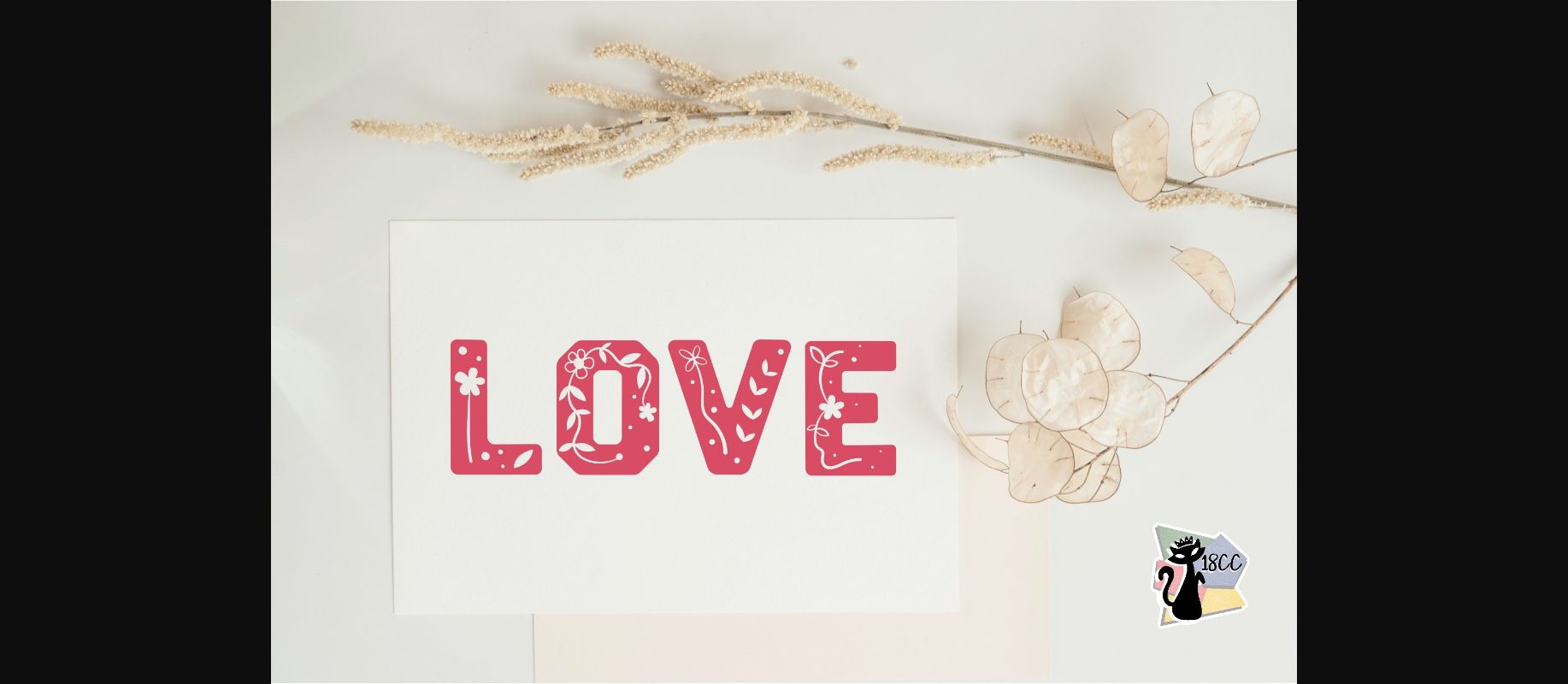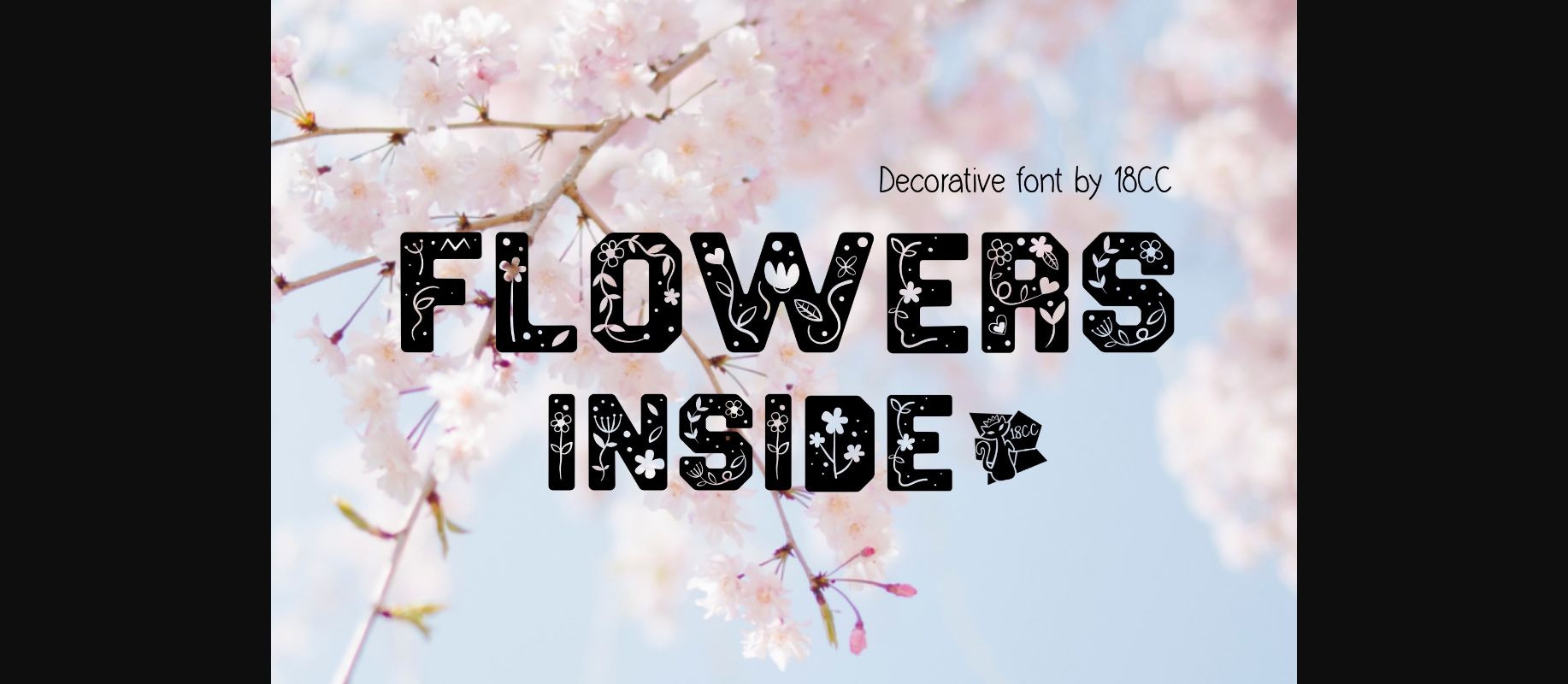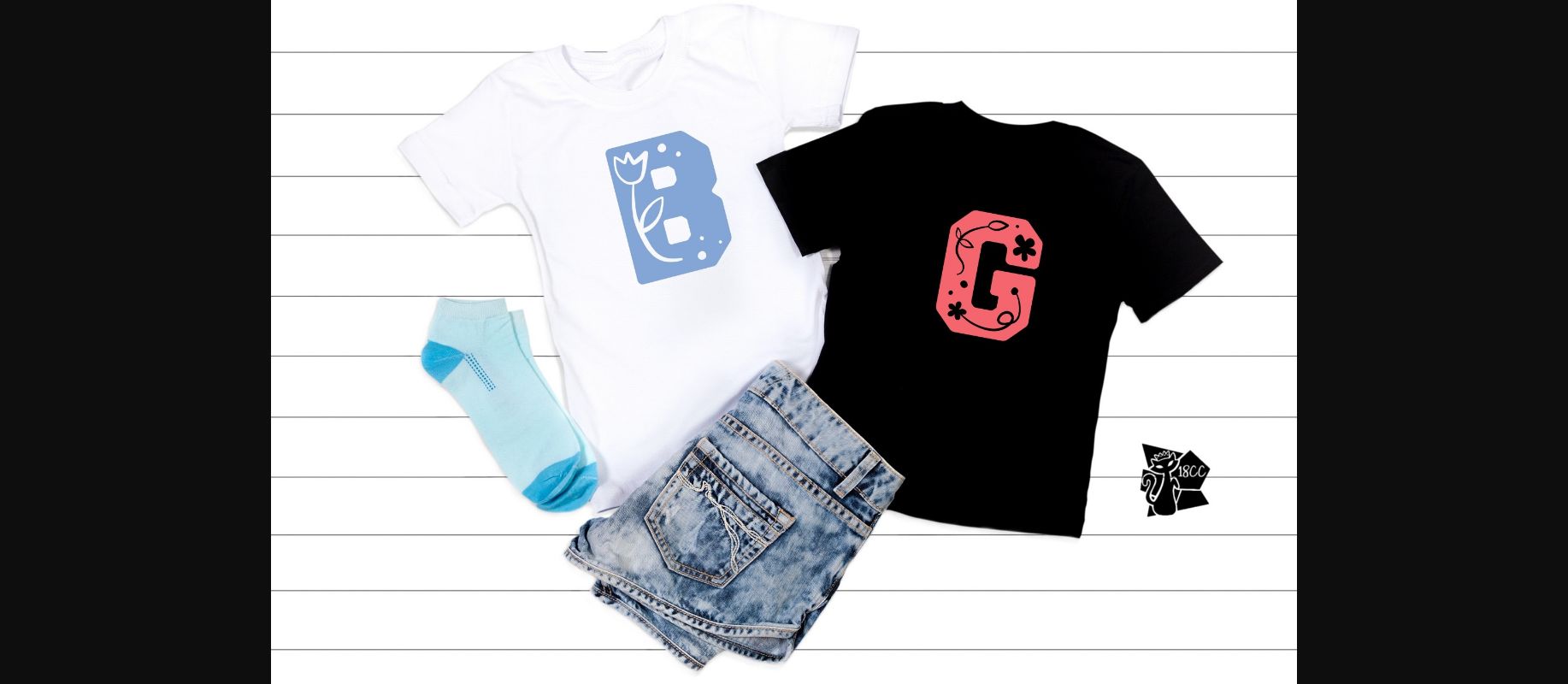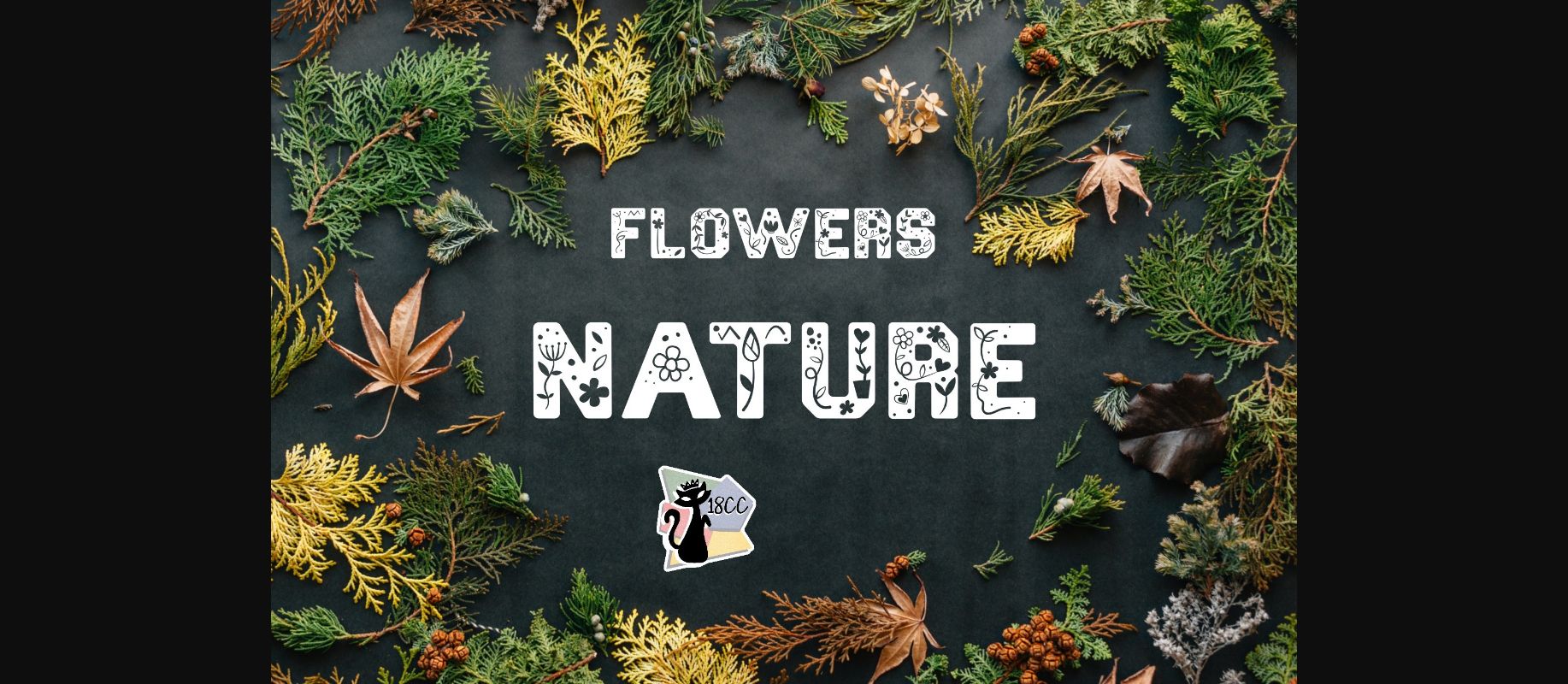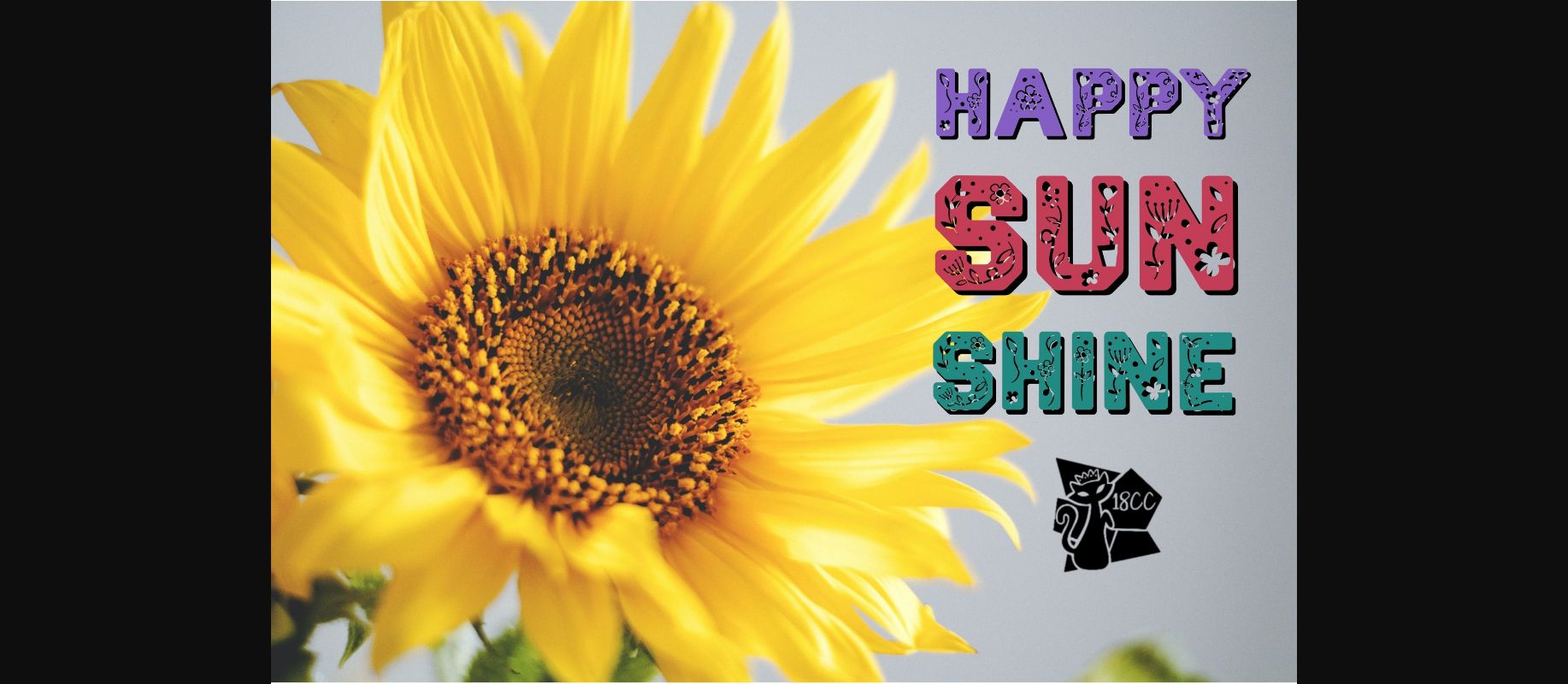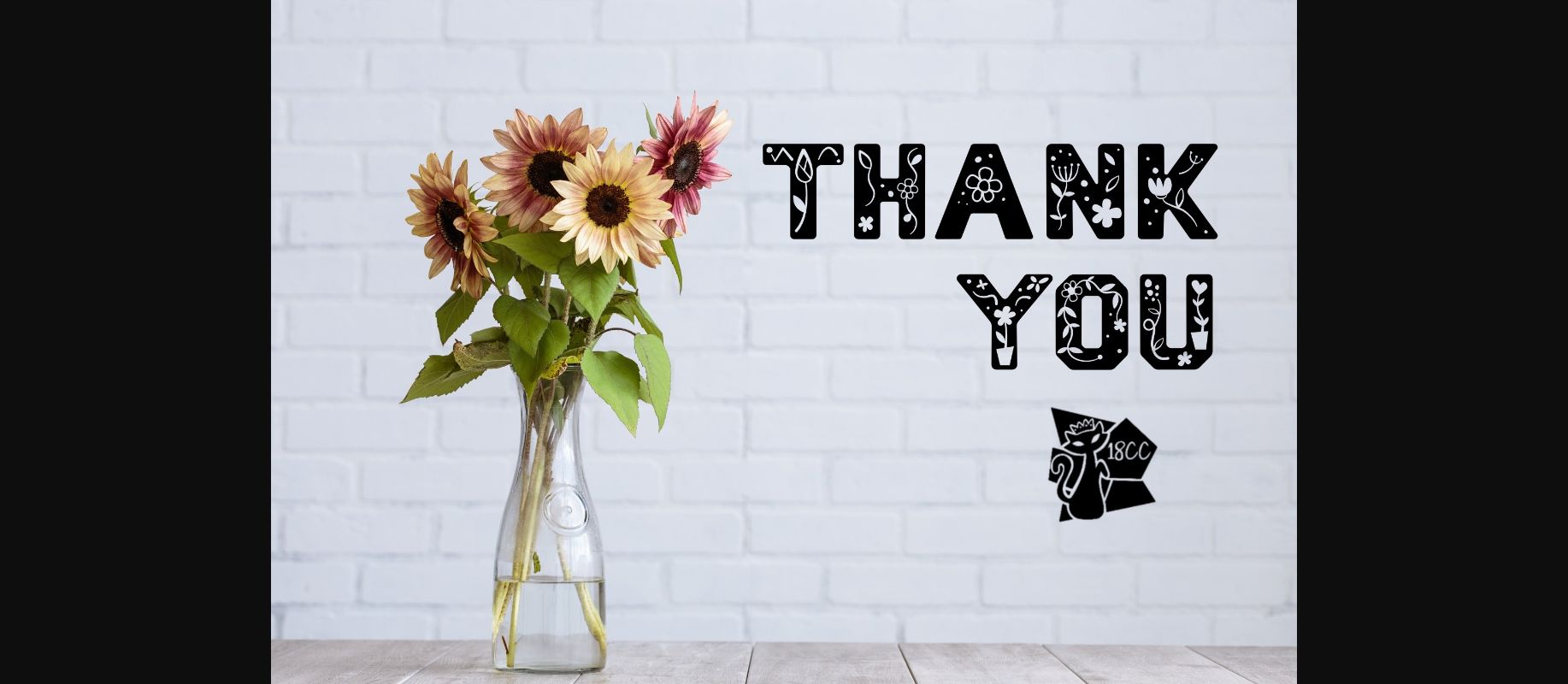
Flowers Inside Font
About Flowers Inside Font
Flowers Inside is a lovely and jolly decorative font. This font is the perfect fit for all of your logos, branding, social media, crafty DIY projects, and much more!